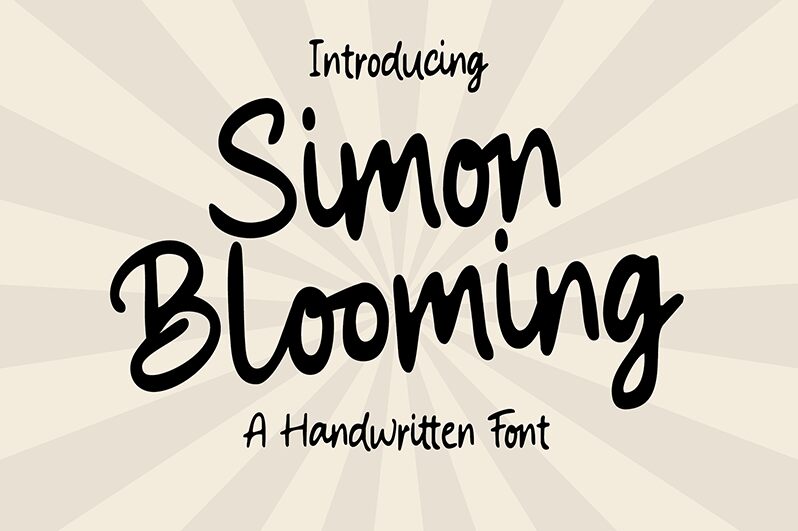
Simon Blooming Demo
Simon Blooming is the perfect casual handwritten font for your next project. Created by talented designer MJType, this font exudes a sense of carefree charm that will make any design feel approachable and welcoming. Its soft curves and elegant lines are sure to capture attention while maintaining readability, making it a great fit for anything from social media graphics to handwritten notes. Simon Blooming's semi-bold typeface is particularly well-suited to headlines and titles, while its medium width makes it versatile enough for body text as well. Whether you're designing a wedding invitation or crafting a social media post, Simon Blooming is the perfect choice for adding personality to your work.